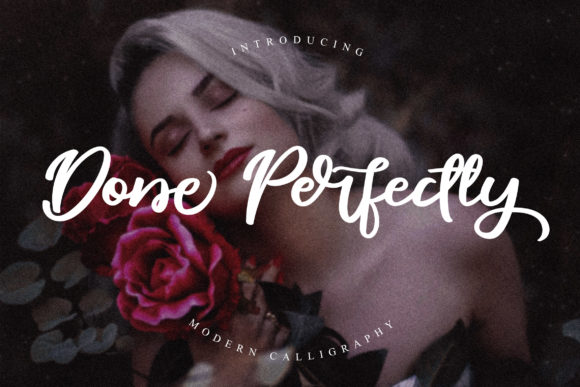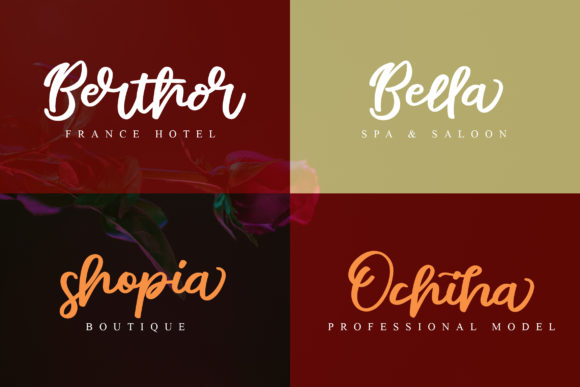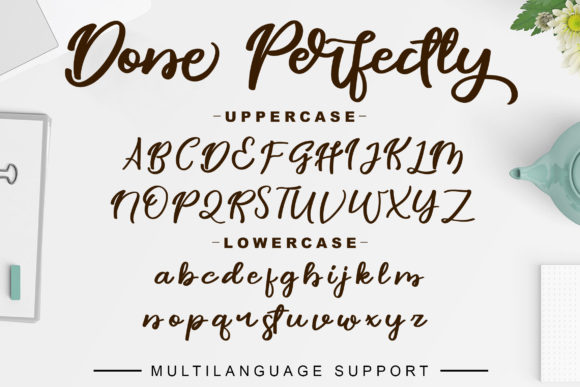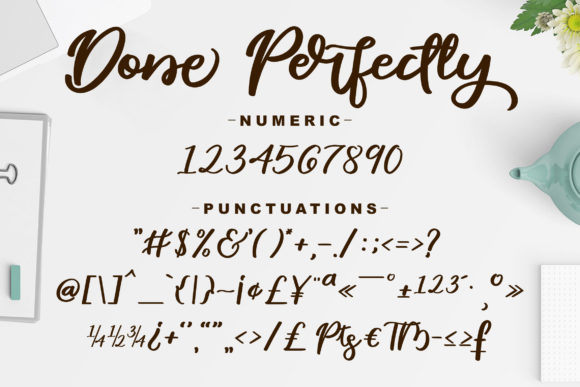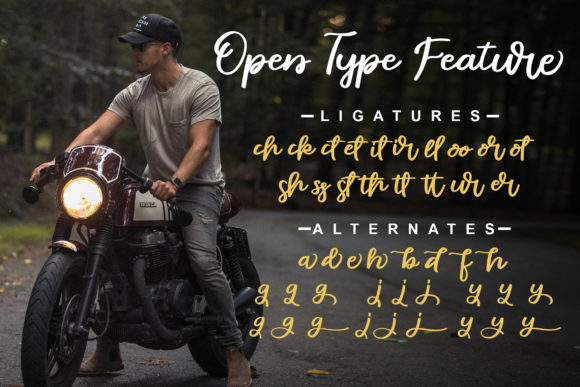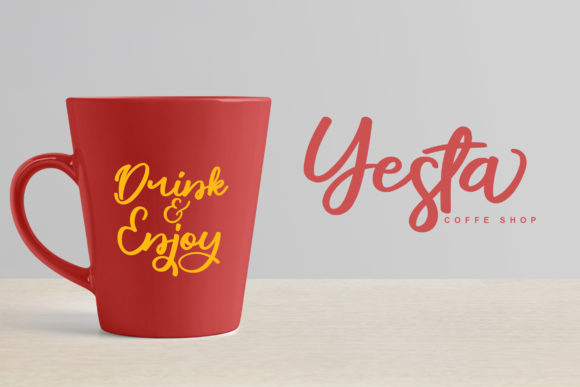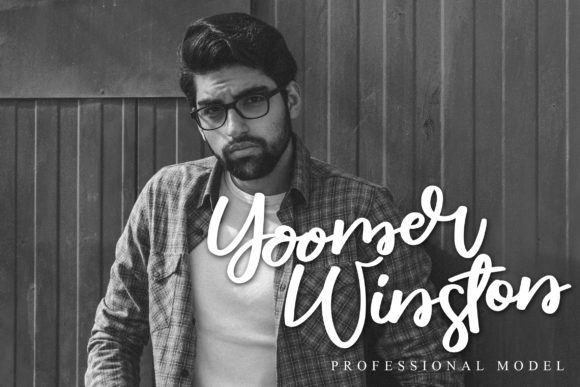
HomeScript FontsDone Perfectly Font Script Fonts Done Perfectly Font FacebookXPinterestWhatsApp Done Perfectly Font Poster 2 Done Perfectly Font Poster 3 Done Perfectly Font Poster 4 Done Perfectly Font Poster 5 Done Perfectly Font Poster 6 Done Perfectly Font Poster 7 Done Perfectly Font Poster 8 Done Perfectly Font Poster 9 About Done Perfectly Font Done Perfectly is an incredibly stunning script with authentic swashes. DOWNLOAD NOW People also explored Rakesly Mushy Loversy Font Korona Font Sweet Milk Font Bokeseni Regular Font Blezed Font Teacher Font Prins Font Sublimate Font 286 0 TagsDone Perfectly Font Previous articleSweet Youth FontNext articleCollega Font LEAVE A REPLY Cancel reply Comment: Please enter your comment! Name:* Please enter your name here Email:* You have entered an incorrect email address! Please enter your email address here Website: Save my name, email, and website in this browser for the next time I comment. Personal Use Free Romansya Personal Use Free Read more about this font Zojihun Personal Use Free Read more about this font Sarwendah Personal Use Free Read more about this font Aldenburg Personal Use Free Read more about this font BLOG Free Fonts Risk: Why Free Fonts Can Be Dangerous for Designers Free Fonts Risk: Why Free Fonts Can Be Dangerous for Designers Using free fonts is a common practice in web and graphic design. However, the... Fonts That Capture the Spirit of New York City Top 10 Handwritten Fonts That Elevate Your Designs Best Fonts for T-Shirt Design – Top 2025 Picks